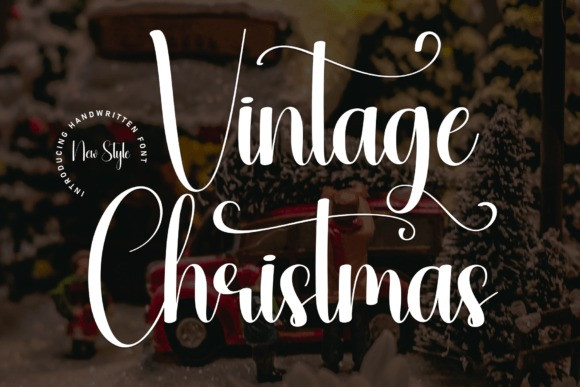
Vintage Christmas Script Font
Vintage Christmas Script Font is a sweet and friendly handwritten font. Its natural and unique style makes it incredibly fitting to a large pool of designs. The only limit is your imagination!